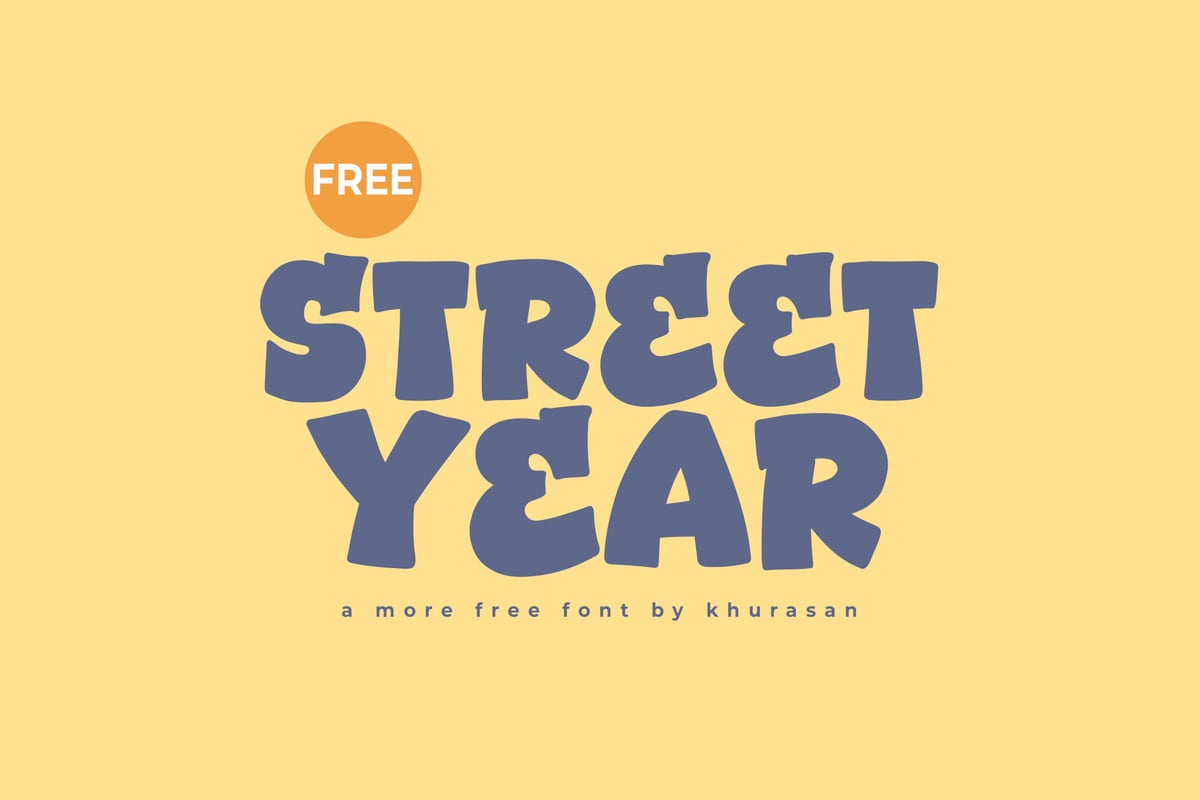
Free Street Year - Free Bold Street Font
Street Year delivers playful confidence and effortless charm to transform any design project.
Looking for a typeface that brings relaxed personality without overthinking? Street Year is your perfect match! Inspired by spontaneous doodles and bold marker artwork, this font creates a natural, handcrafted aesthetic for all your creative endeavors. From birthday celebrations to trendy apparel designs, Street Year makes every project feel authentically effortless.